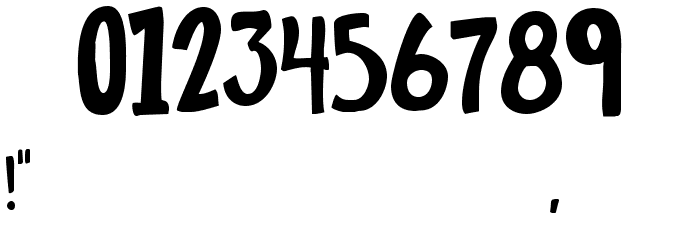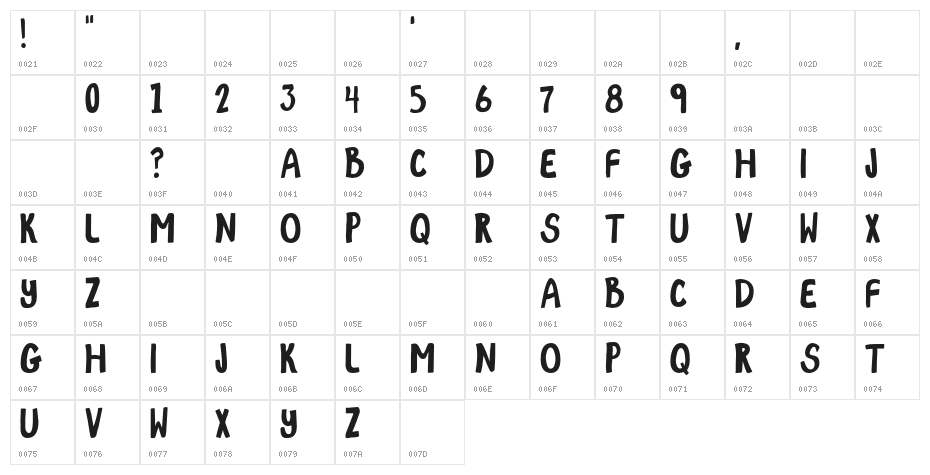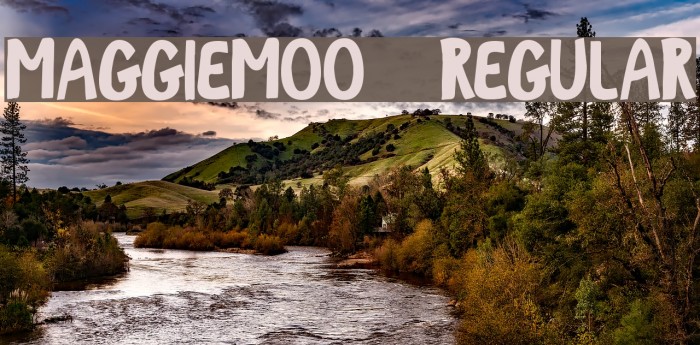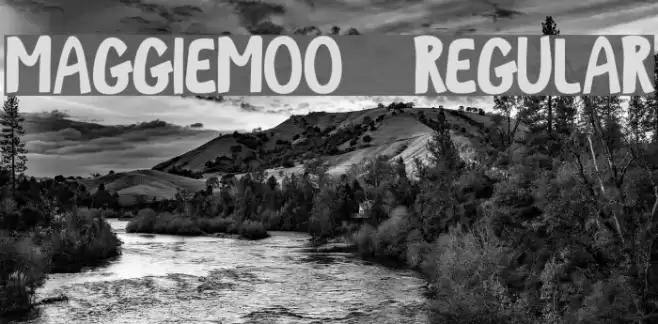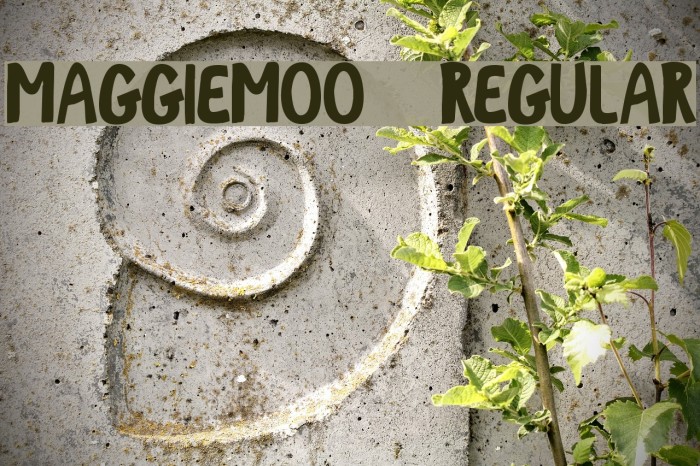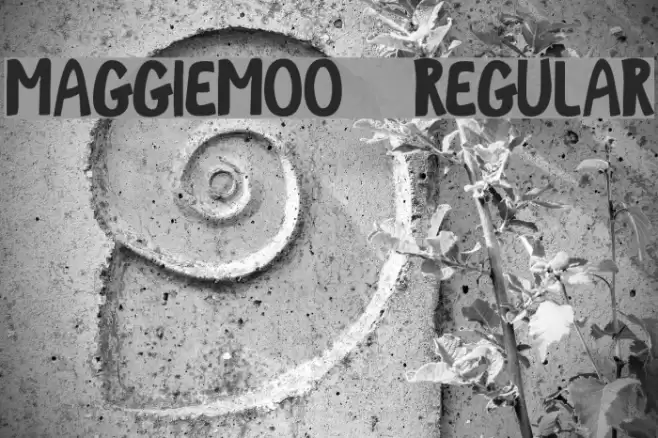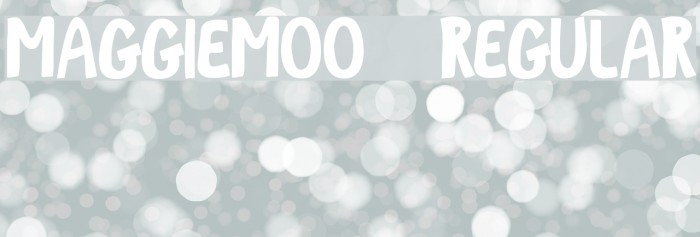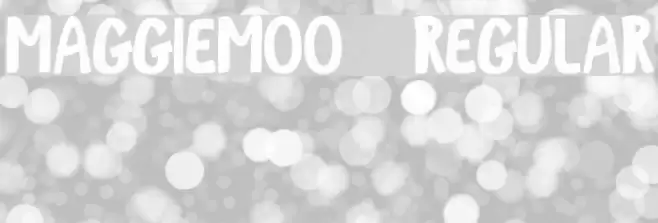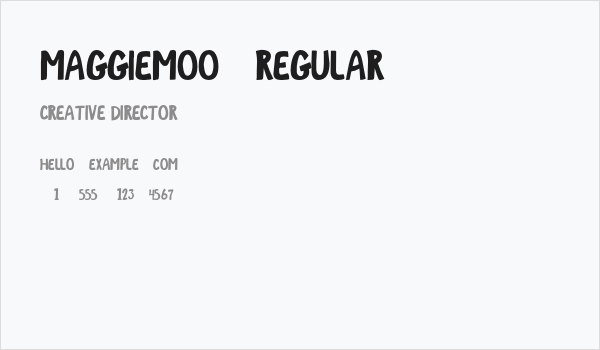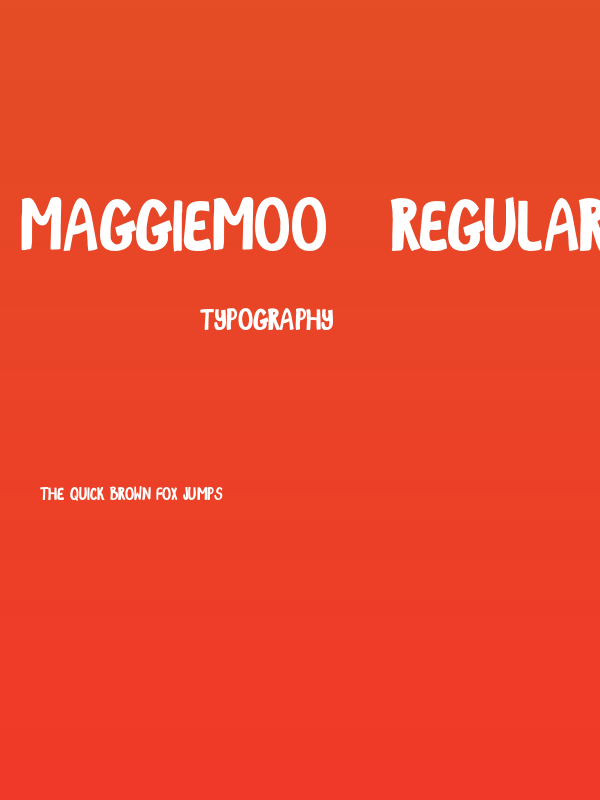
MaggieMoo-Regular Font
MaggieMoo-Regular Description
This playful and bold font features a hand-drawn style with a whimsical touch. The characters are slightly irregular, giving it a casual and friendly appearance. The uppercase letters are prominent and rounded, while the lowercase letters maintain a consistent style that complements the uppercase. Numbers are clear and easy to read, matching the overall aesthetic. The font's unique personality makes it stand out, ideal for projects that require a fun and approachable look.
| Proposed Projects | Great for children's books, playful branding, greeting cards, and casual posters. |